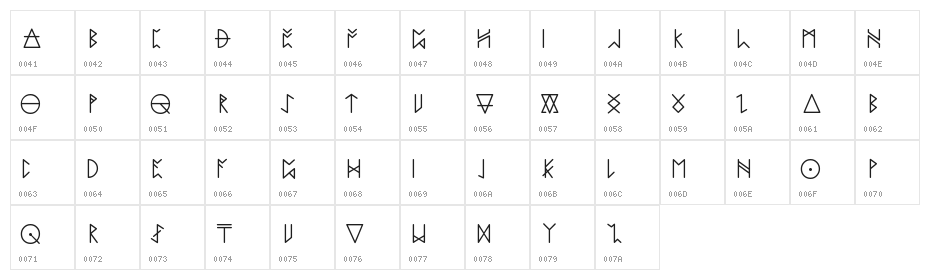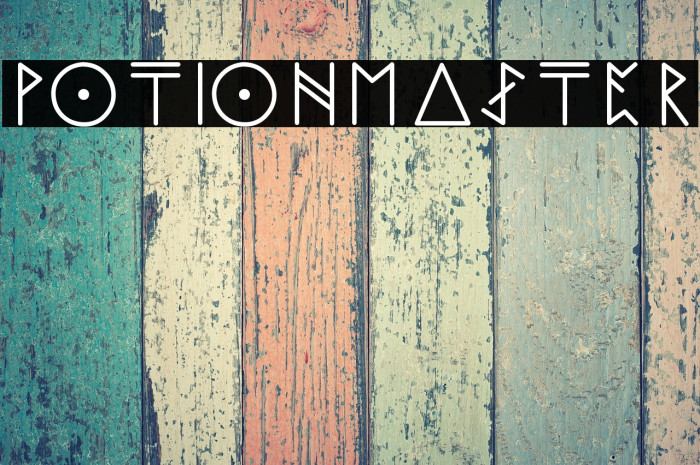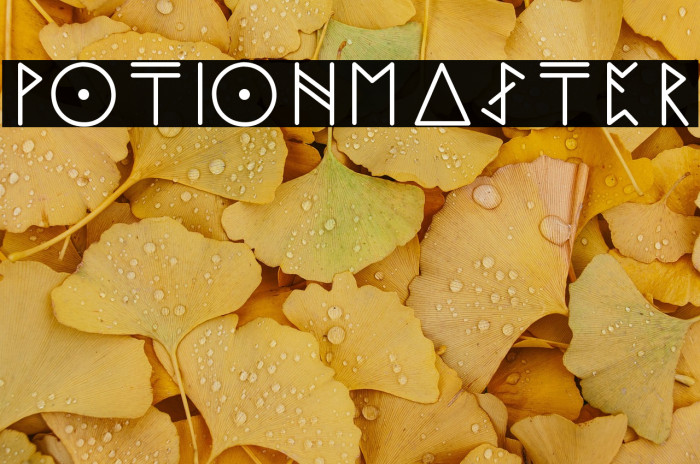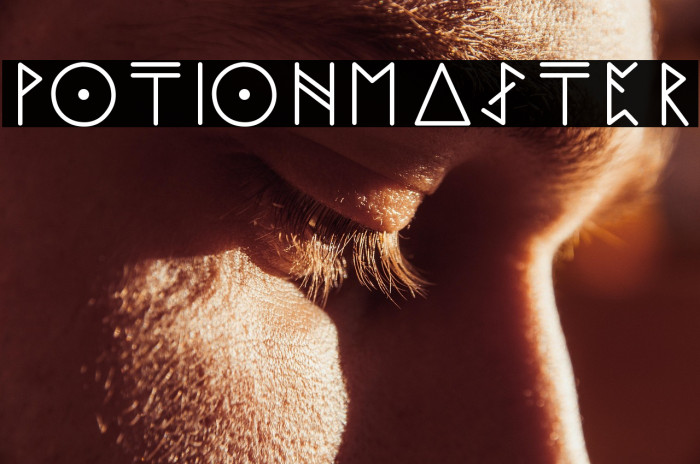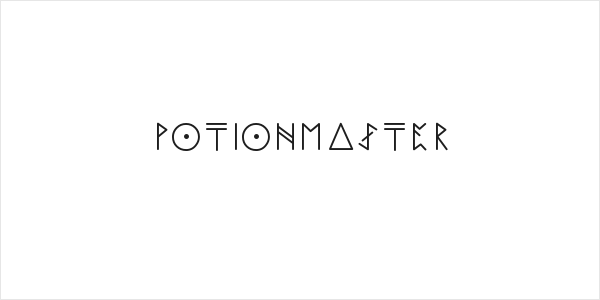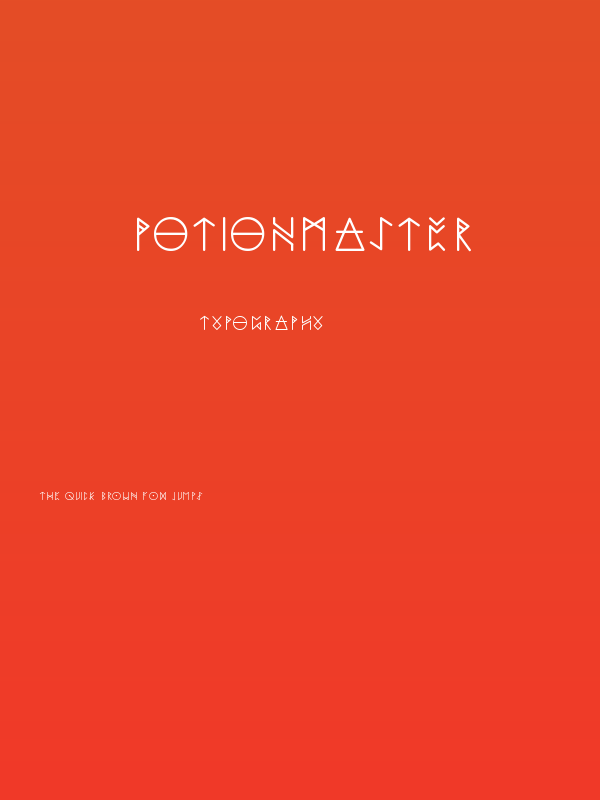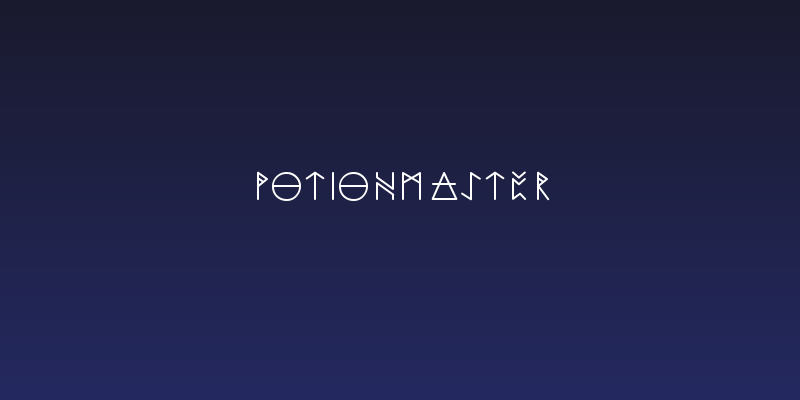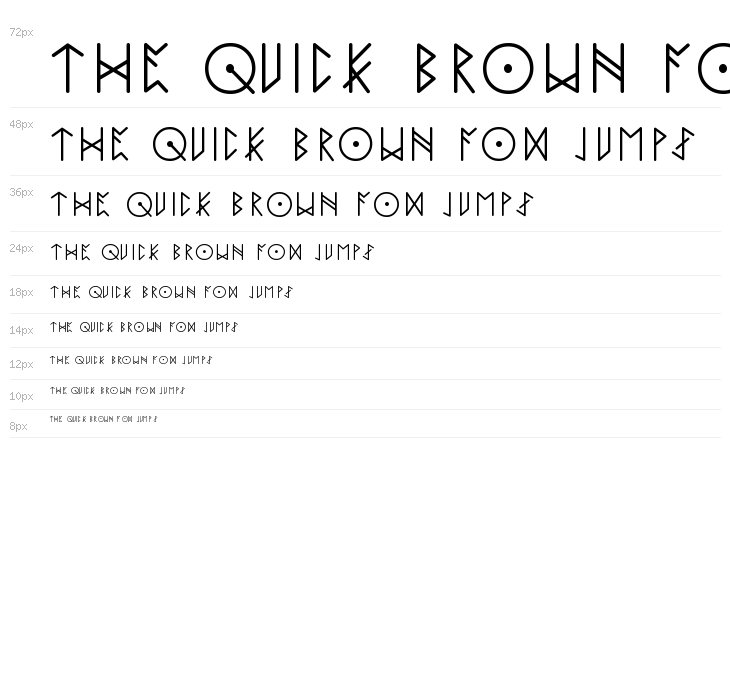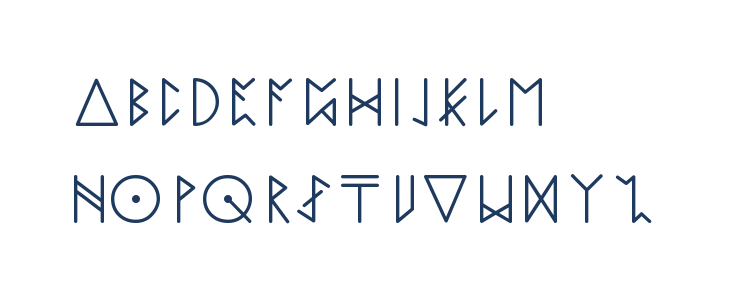
potionmaster Font
potionmaster Description
This font features a unique and mystical design, reminiscent of ancient runes or magical symbols. Each character is crafted with geometric precision, incorporating triangles, circles, and intersecting lines that evoke a sense of mystery and enchantment. The uppercase letters are bold and striking, while the lowercase letters maintain the same thematic elements, ensuring consistency throughout. The numerals and special characters are equally distinctive, adding to the font's overall magical aesthetic. This font is perfect for projects that require a touch of fantasy or a connection to ancient or mystical themes.
| Overall Style | Mystical, Geometric, Enchanting |
| Use Case | Headlines, Logos, Themed Designs |
| Proposed Projects | Ideal for fantasy book covers, game design, mystical branding, and themed event invitations. |